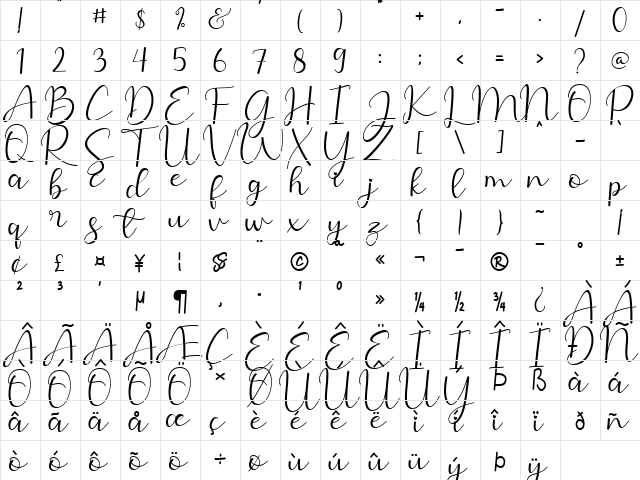
Hello Selly Regular
| Designer | AEN Creative Studio 2020 |
Design Context for Hello Selly Typeface
Hello Selly is a composed and adaptable typeface that performs quietly and consistently across a wide range of design contexts.